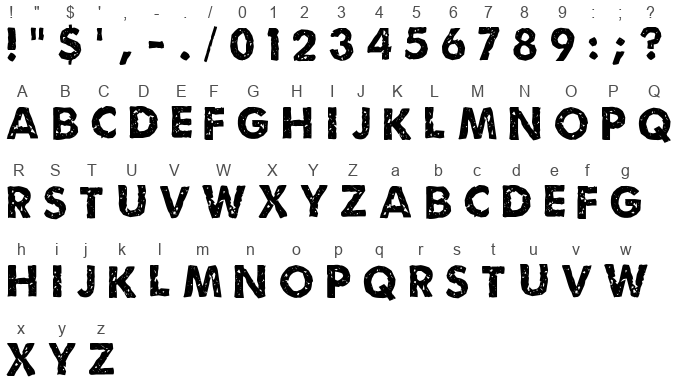
The font "Umbrage," crafted by the skilled Vic Fieger, stands out as a compelling and distinctive typeface, embodying a balance of artistic flair and readability that makes it a versatile choice for various design needs. Through its unique characteristics, Umbrage offers a fresh perspective in the realm of typography, appealing to those who seek a font with personality and presence.
At its core, Umbrage features a robust and dynamic design that commands attention. The letterforms exhibit a certain boldness and assertiveness, making it an excellent choice for headlines, titles, and any application where making a strong impression is key. The letters possess a unique blend of sharp and smooth curves, creating a visual rhythm that is both engaging and pleasing to the eye. This duality ensures that Umbrage can adapt to both contemporary and more edgy design projects with ease.
What sets Umbrage apart is its inherent versatility. Despite its bold appearance, the font maintains a level of legibility that is commendable. This makes it not only suitable for short texts that require impact but also for longer passages where clarity cannot be compromised. Furthermore, Vic Fieger's thoughtful design approach is evident in the subtle details and the overall balance of the typeface, which together foster a sense of harmony and coherence in any layout.
In the realm of creative projects, Umbrage offers a breath of fresh air. Its distinctive appearance helps it to stand out among other fonts, making it a go-to choice for designers seeking to inject a touch of uniqueness and character into their work. Whether it's for branding, poster design, or digital media, Umbrage by Vic Fieger is a font that can truly elevate the aesthetic of a wide range of projects, embodying a blend of creativity, boldness, and sophistication.
Umbrage